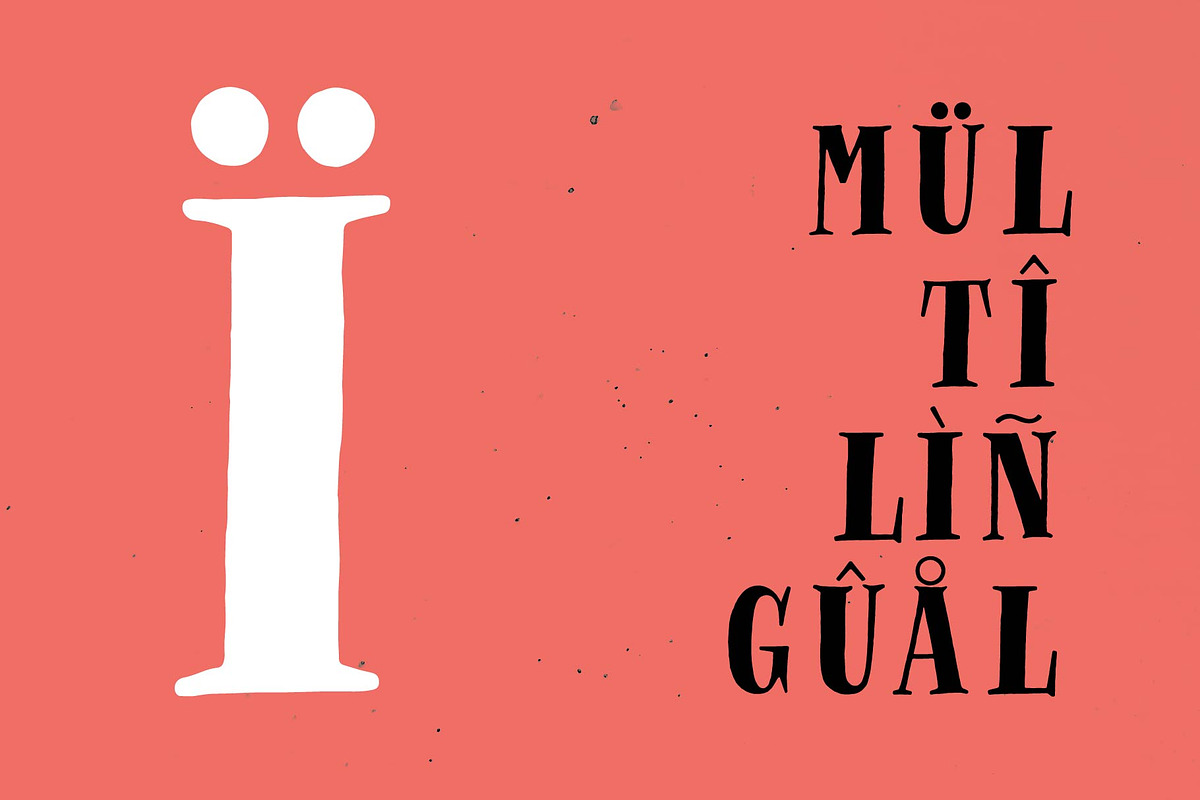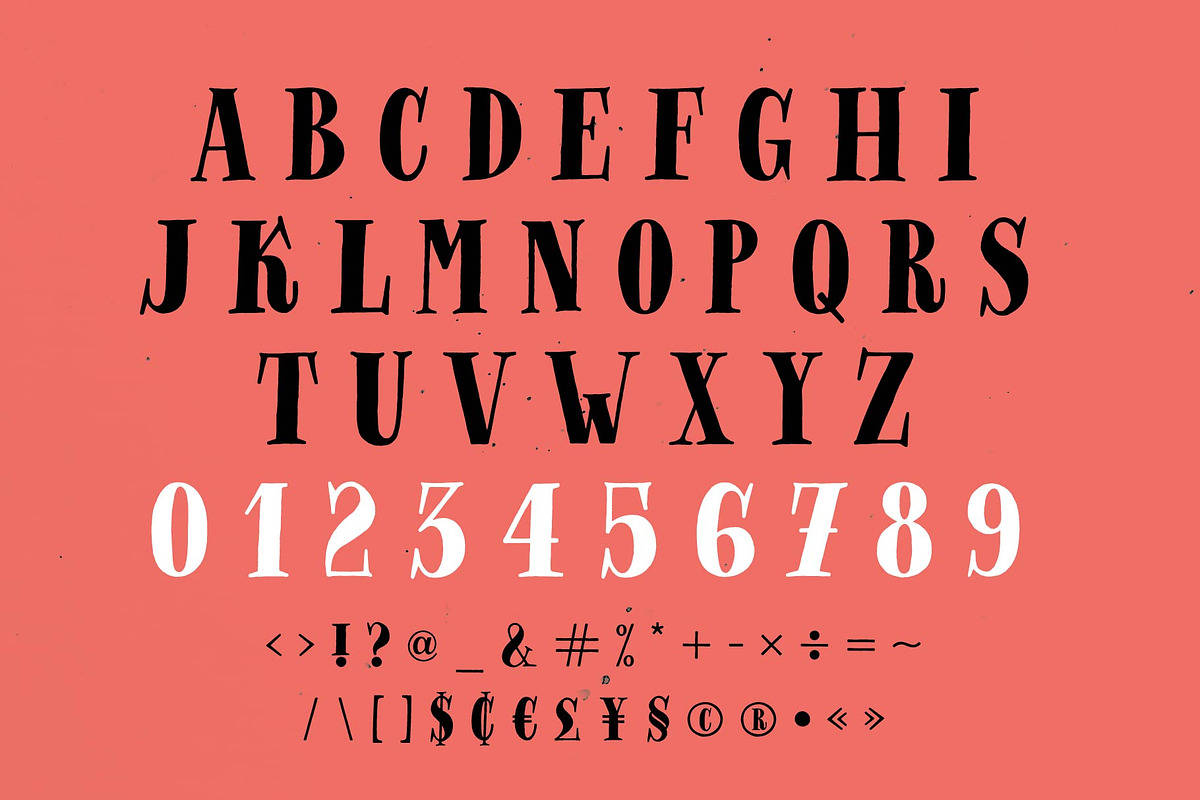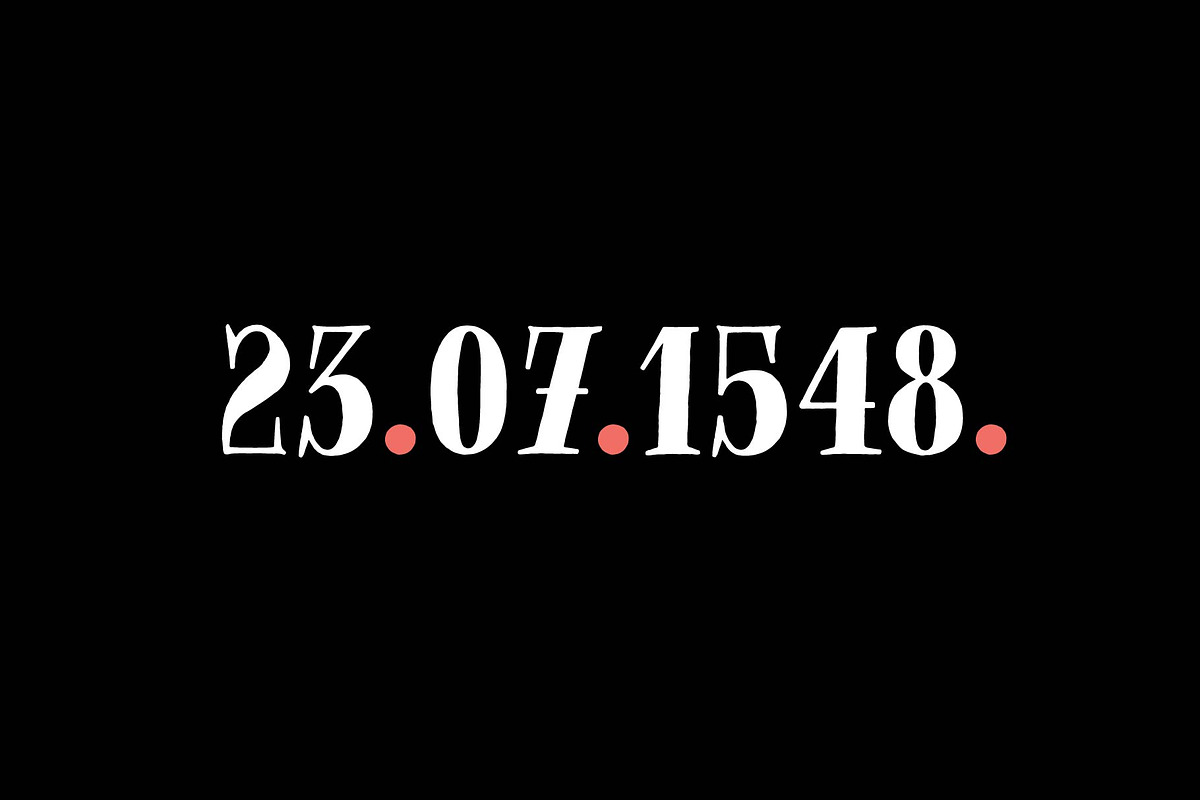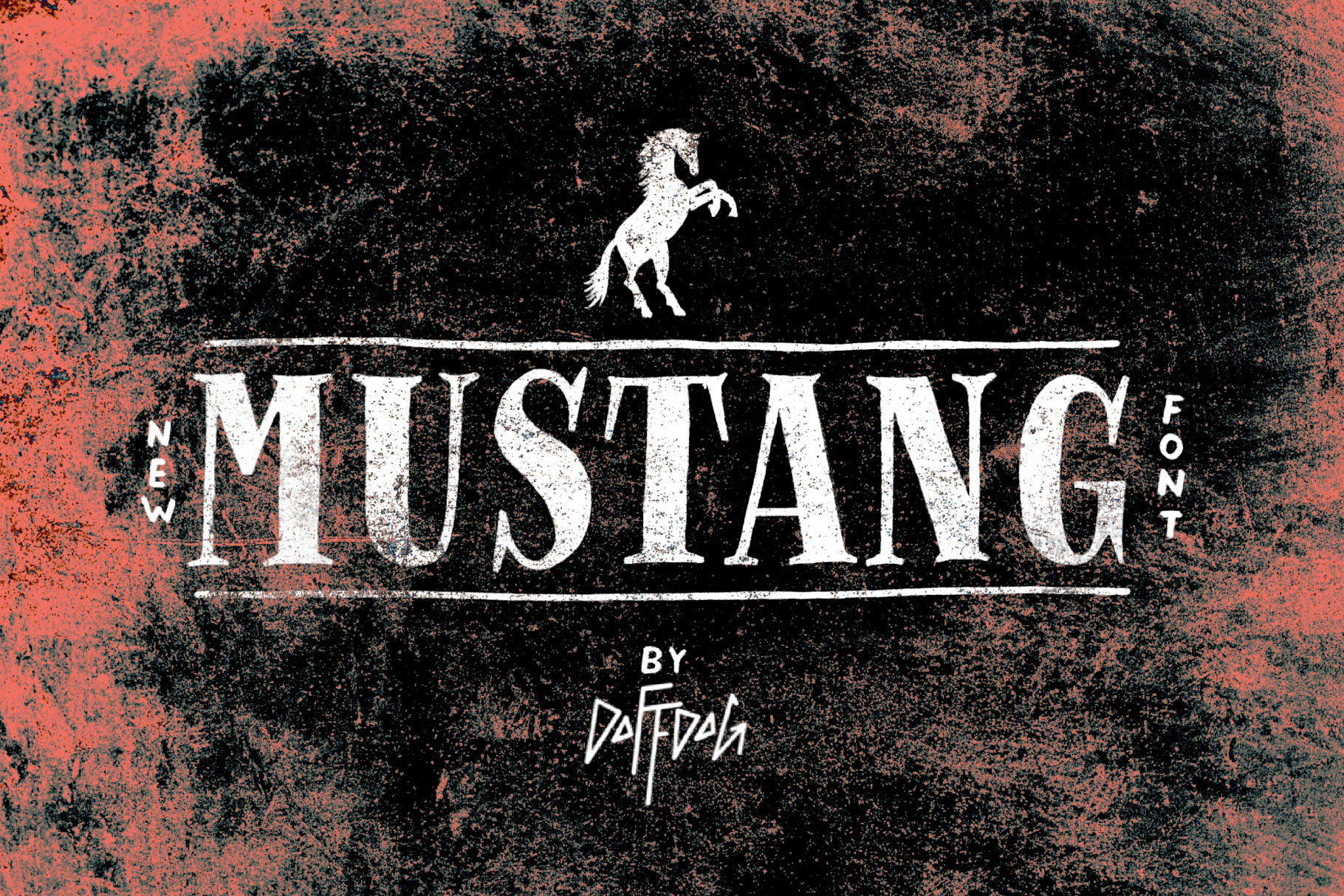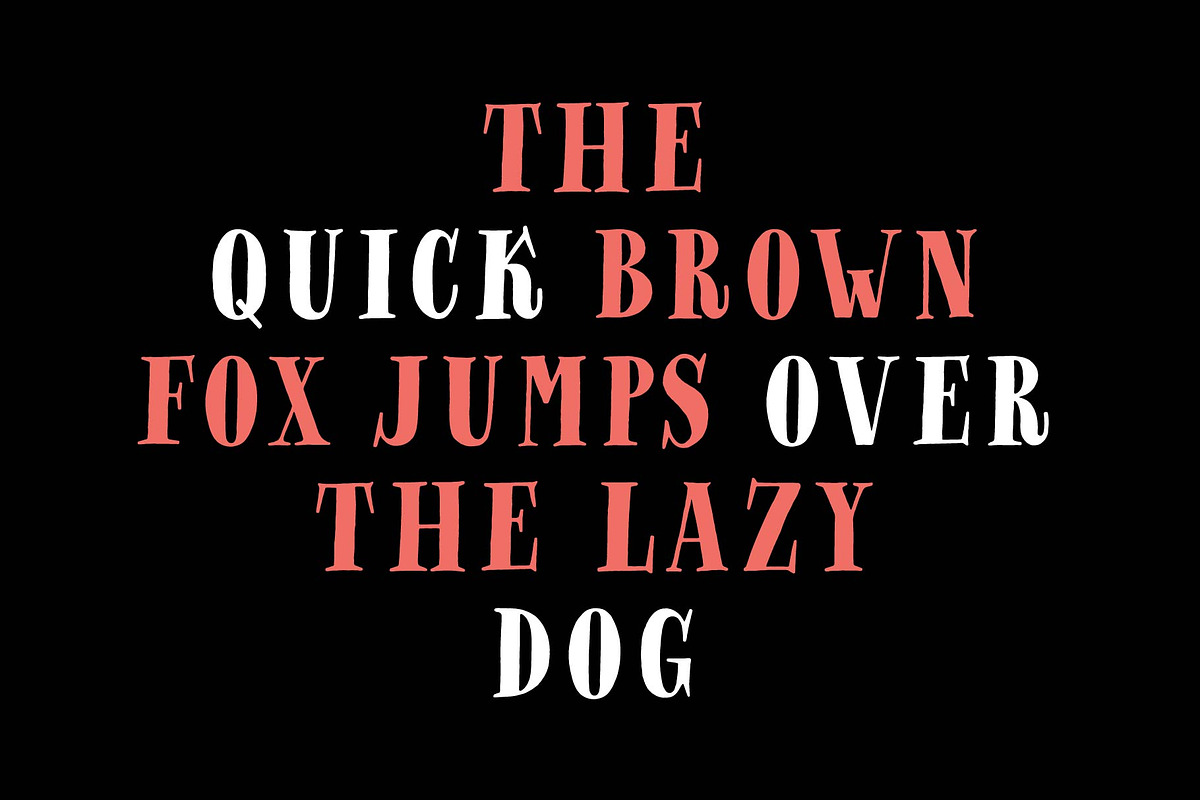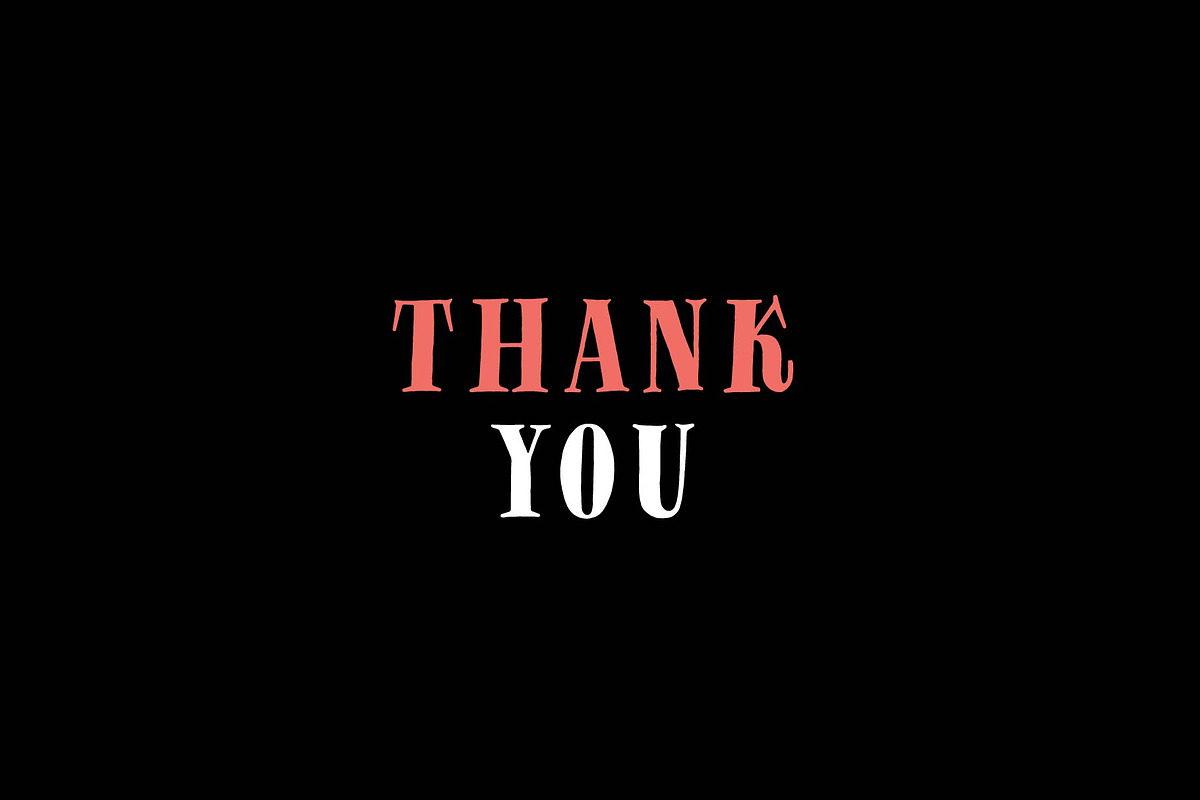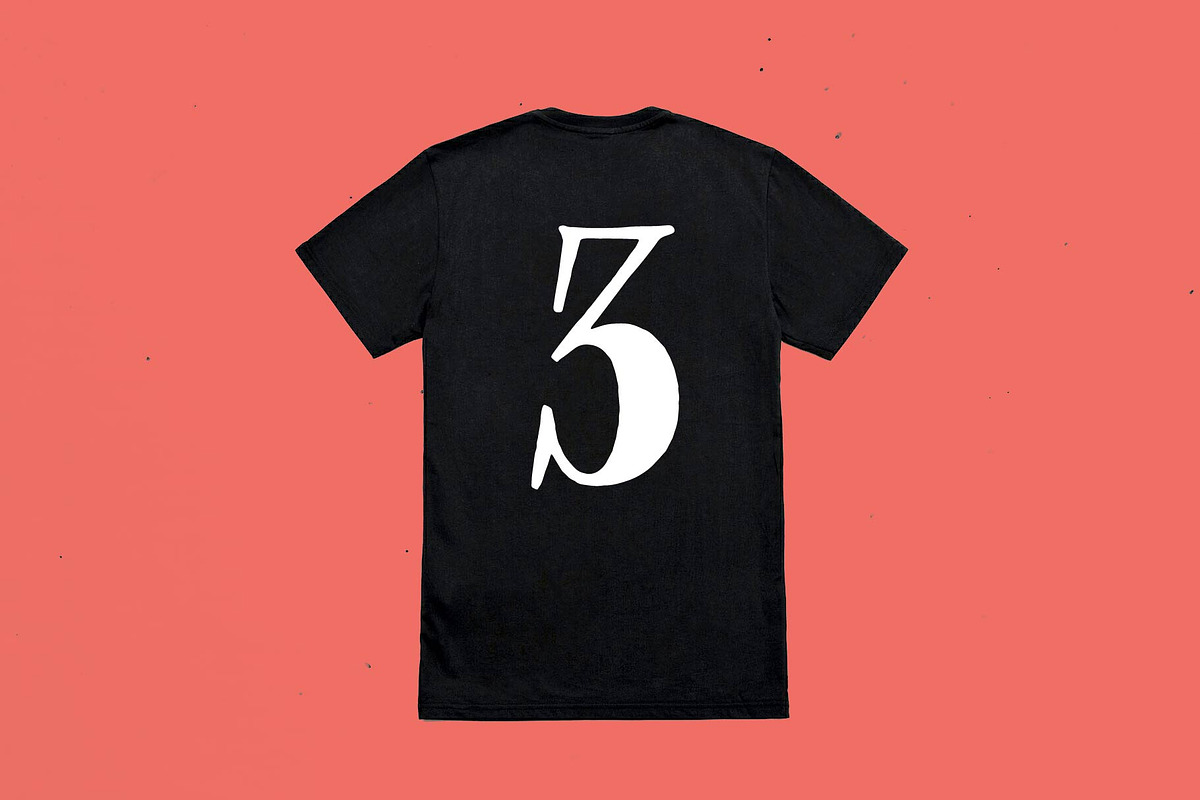
Mustang - Vintage font
Mustang is a vintage handmade all caps font. It is perfect for: logos, posters, labels, headlines, apparel & more. It comes with characters, numbers, marks and punctuation.